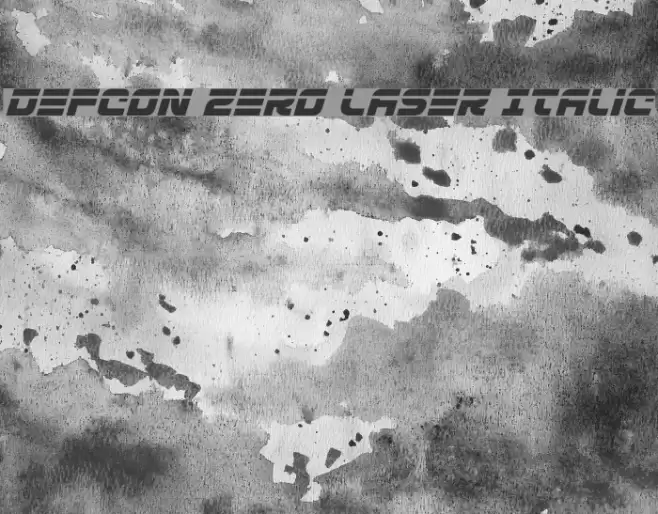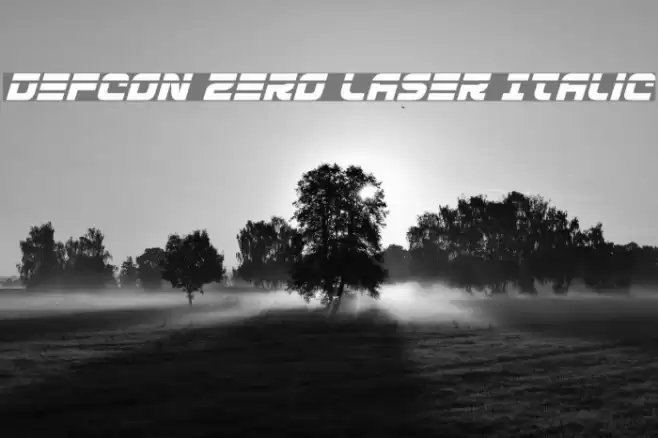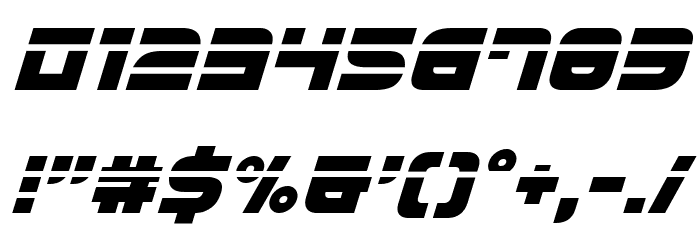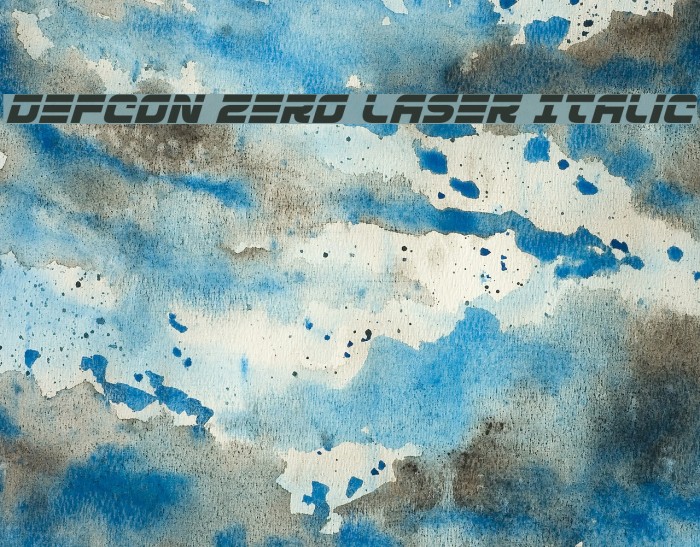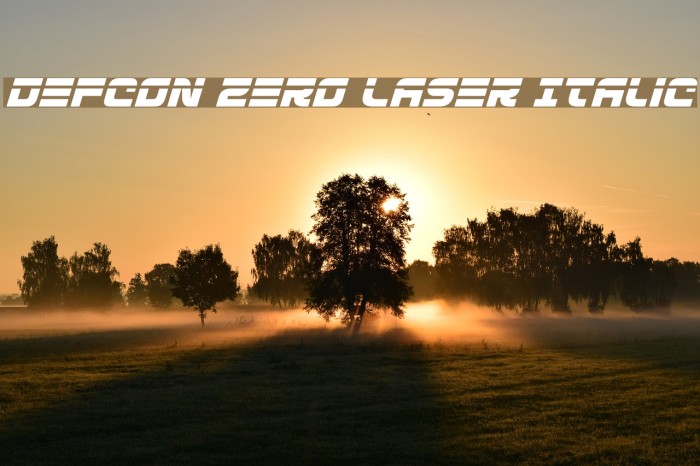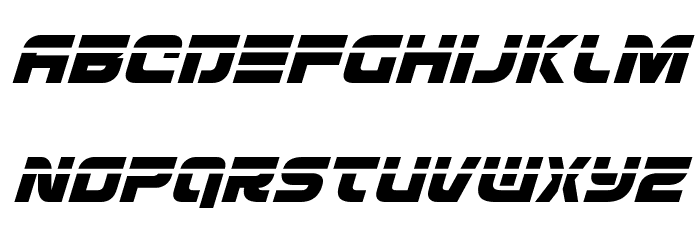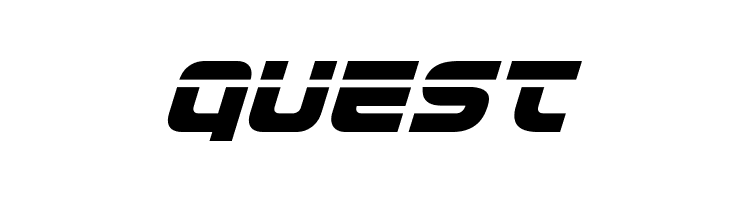
Defcon Zero Laser Italic Font
Defcon Zero Laser Italic Description
This font features a futuristic and dynamic design with a strong emphasis on angular shapes and sharp edges. The characters are slanted, giving them an italicized appearance, which adds to the sense of motion and speed. The bold strokes and geometric forms create a striking visual impact, making it ideal for attention-grabbing headlines or logos. The font maintains a consistent weight throughout, ensuring readability while retaining its distinctive style. The spacing between characters is tight, contributing to its compact and cohesive look. Overall, this font embodies a modern and edgy aesthetic, perfect for projects that require a bold and contemporary touch.
A futuristic, italicized font with bold, angular shapes and tight spacing from Sci-fi fonts.
- Proposed Projects: Ideal for sci-fi themed designs, technology branding, video game titles, and dynamic posters.
- Character Spacing: Tight